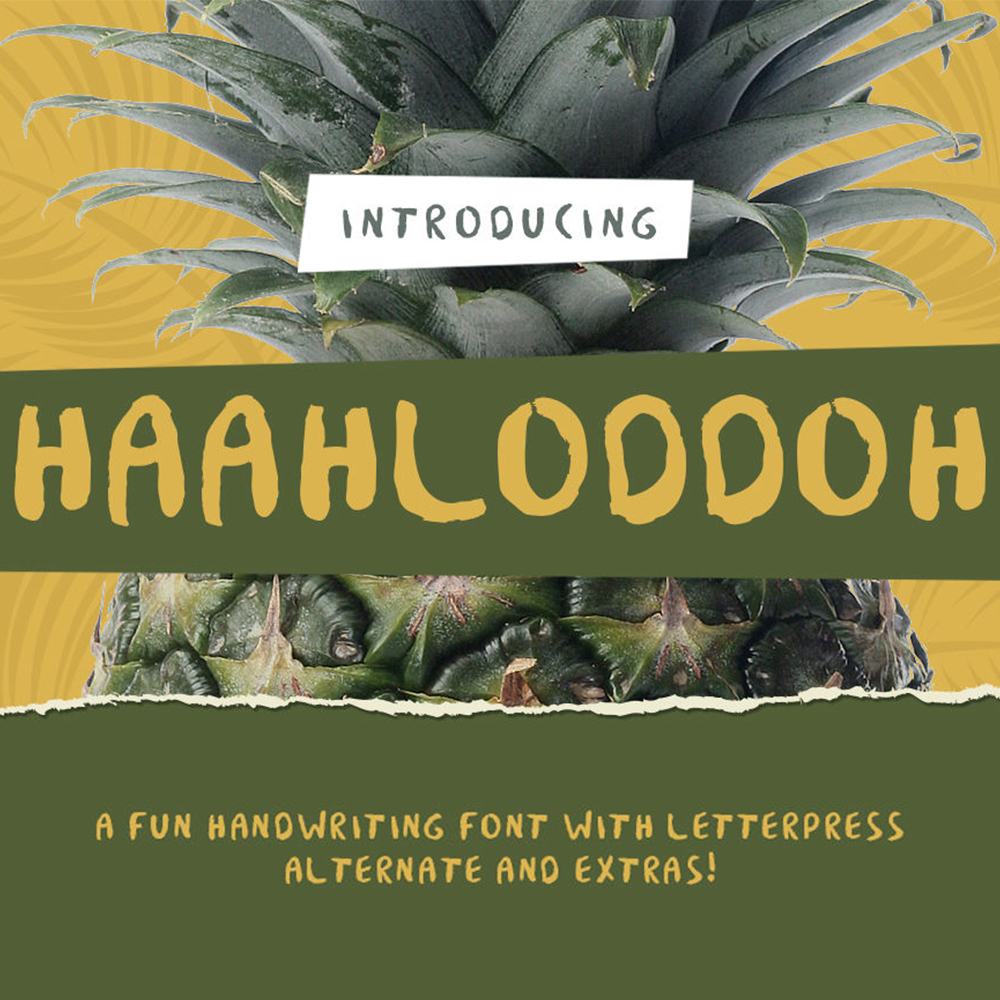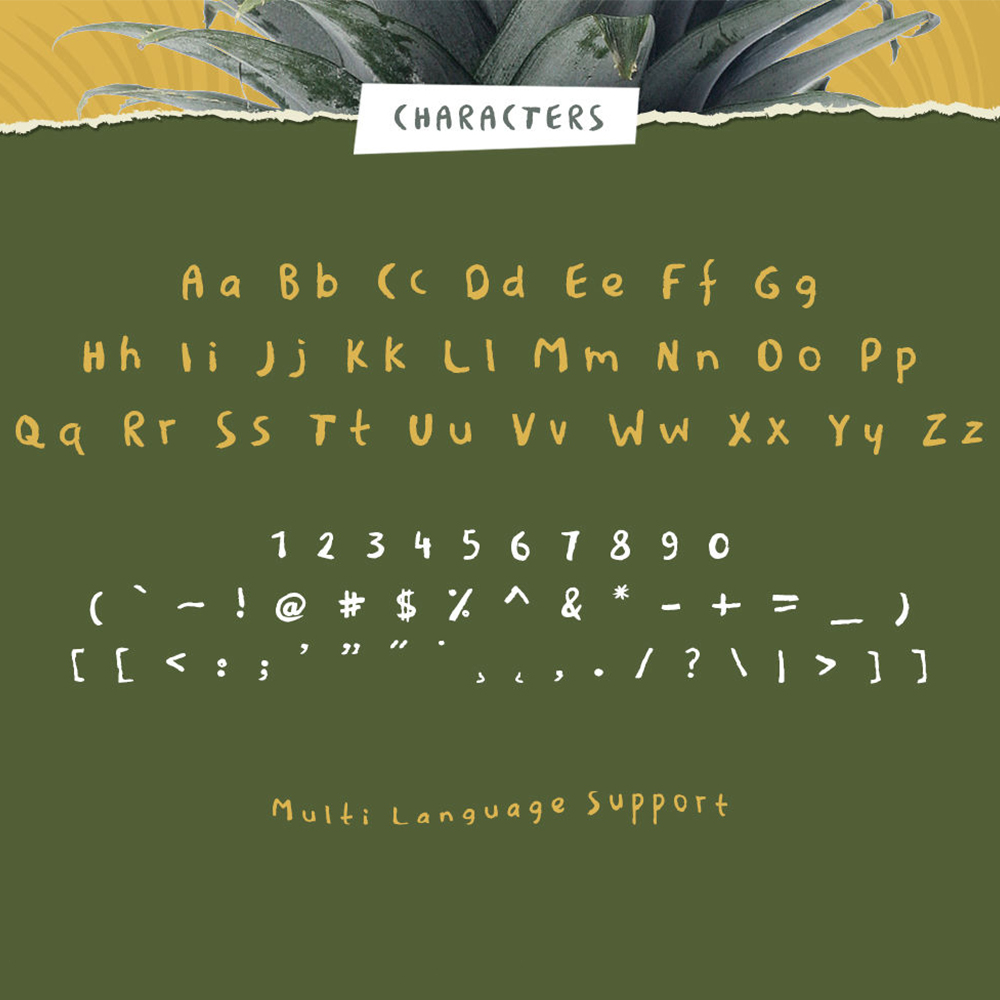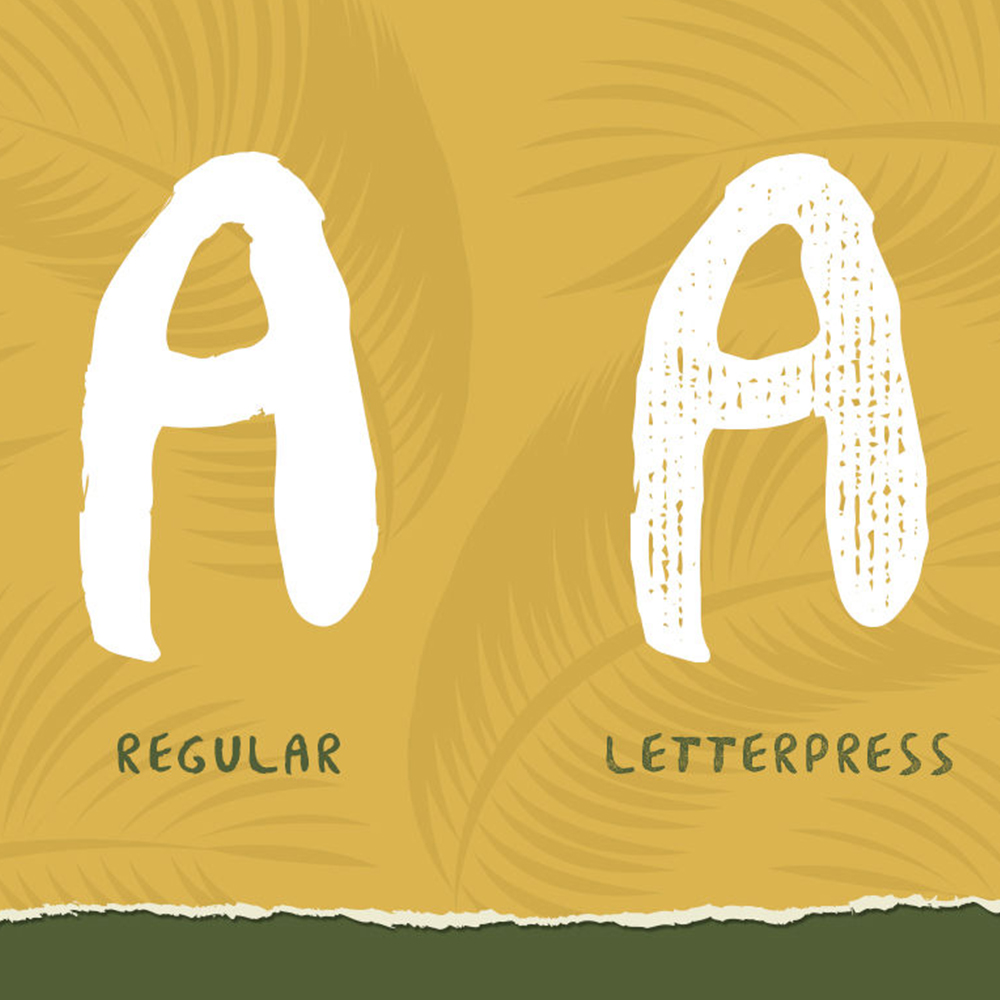
Haahloddoh Font
Haahloddoh Font is a cut friendly font compatible with Cricut, Silhouette, SCAL and Scan N Cut. Its thickness makes it an ideal font for making cut files.
• Uppercase, Lowercase, numbers & punctuation